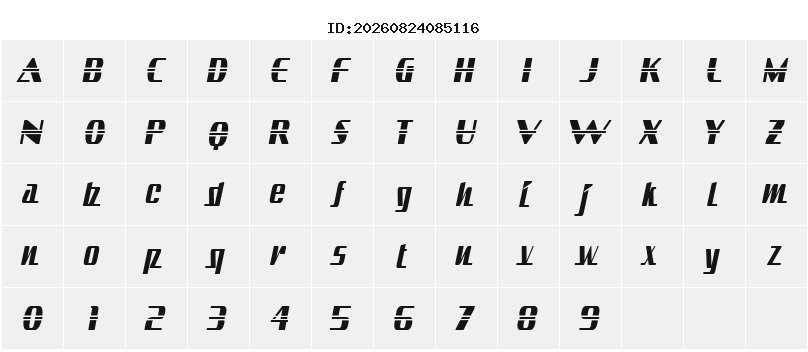
Sandoval Preview
• Font Name: Sandoval
• Font ID: RayLarabie: Sandoval: 2001
• Full Font Name: Sandoval
• Version: Version 1.0; 2001; initial release
• PostScript Name: Sandoval
• Character Count: 271
• Designer: Ray Larabie
About Sandoval.ttf
Sandoval.ttf is a modern, elegant sans-serif font designed for ultimate readability and visual harmony. Perfect for branding, headlines, web design, and print materials.